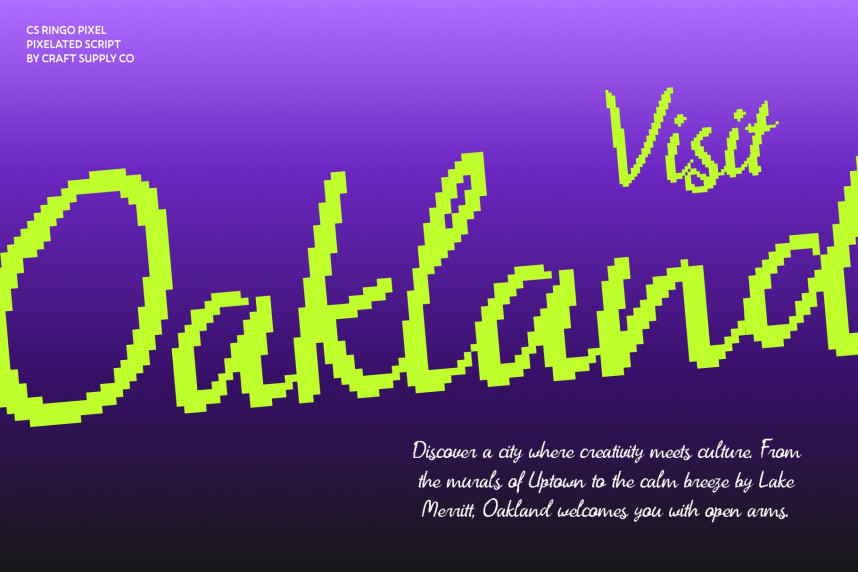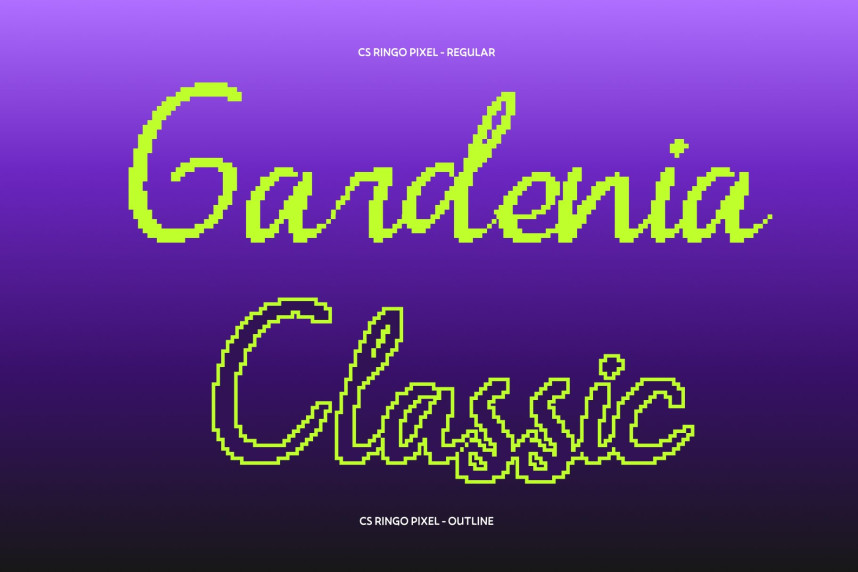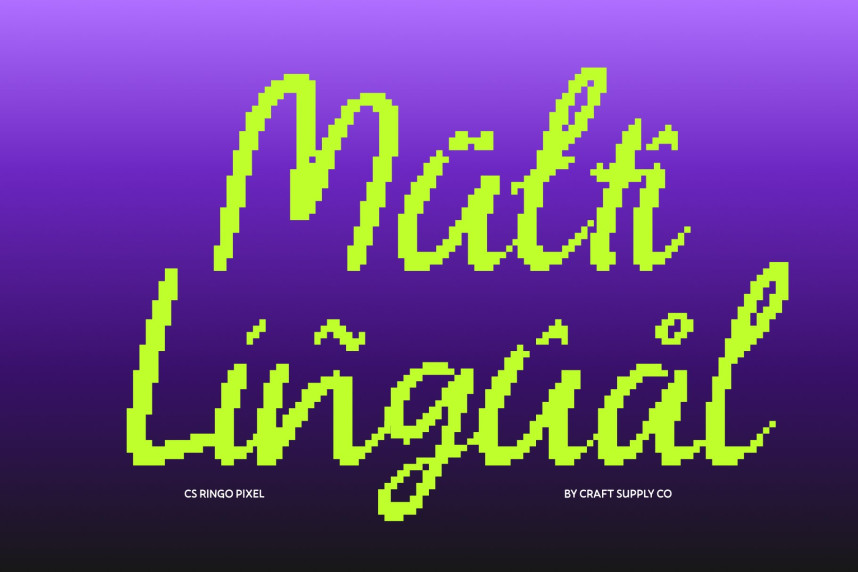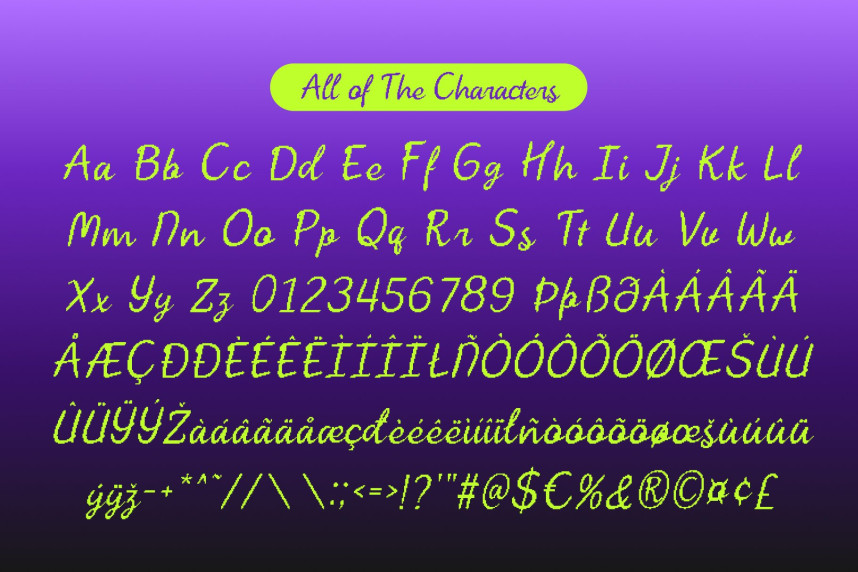
CS Ringo Pixel Font
CS Ringo Pixel Font – Handwritten Script Font with Digital Charm Script with Pixel-Inspired Personality. This is a handwritten script font that blends feminine with subtle pixel character. Its flowing strokes and refined curves preserve the beauty of natural handwriting, while the pixel treatment introduces a distinctive digital twist. The result is a script font that feels warm, stylish, and perfectly suited for both modern and retro-inspired designs.